After looking through the resources provided, I decided to compare Garamond and Didot.
Garamond vs Didot — Differences
One of the biggest differences between Garamond and Didot is when they were produced. Garamond is an Old Style font while Didot is a more modern one. I found comparing both of them particularly interesting because of this. Since they are both the ends of the different typefaces, it makes it easier to see the major differences between the both of them. For example, the serifs in Garamond are more rounded than the serifs in Didot. Didot’s serifs are stick straight. Didot has a thinner hairline than Garamond does, Garamond’s tends to be thicker. The bowl of Garamonds a’s is a lot more curved than Didot. Didot’s looks a lot “neater” in a sense whereas Garamond looks more “handwritten.”
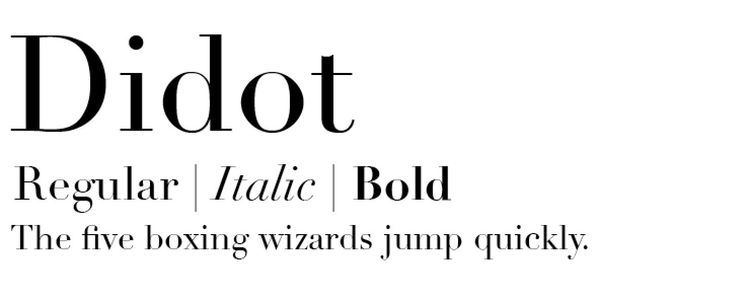
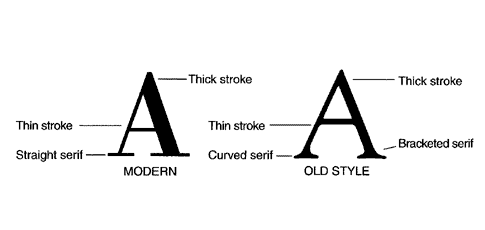
Garamond vs Didot — Similarites
While the differences between these two fonts are vast, they also have a few similarities. For example, neither font is too squished. The kerning between both fonts is even and nice on the eyes. Both fonts have a similar-sized counter in their O’s, D’s, and A’s. Both have a professional feel to them as well. Overall, both are really nice fonts to use for any purpose.
My Opinion
All in all, I prefer Garamond to Didot. It has a more handwritten look to it which makes it feel personal. While the clean-cut lines of Didot are satisfying to see typed out, I can see myself reaching for Garamond for personal use more often. The history behind Garamond is also very intriguing. I was surprised to find out that Greek letters inspired later styles of Garamond. It was also very interesting to learn that Garamond is considered the most finished specimen of typography to exist. I agree that the typeface has a polished yet worn-in look to it.